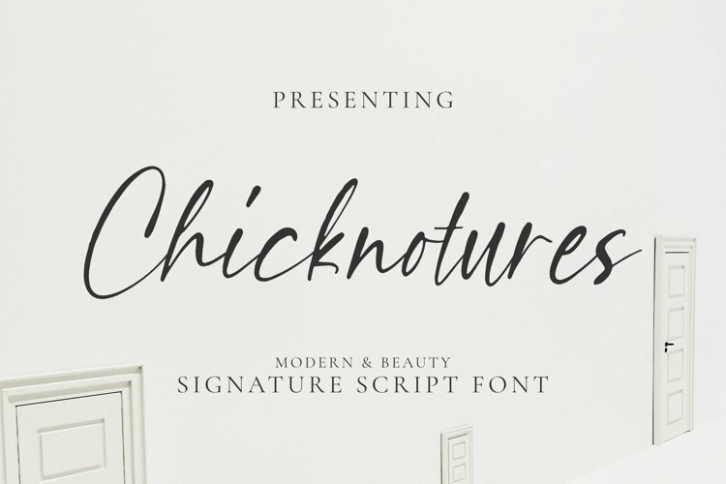
Web Chicknotures is a great font that was designed by plusstore. Imagine the amount of combinations you can create using this font! The archive is 3.96 MB and it was released on August 30, 2021. Web Chicknotures looks beautiful on wedding invitations, greeting cards, logos, posters, labels, t-shirt designs, logos, business cards and is perfect for use in ink or watercolor works, fashion, magazines, packaging and food menus, children's books and more!